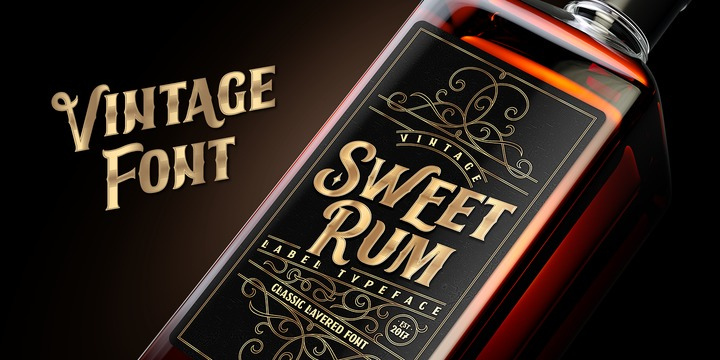
Sweet Rum Font
This tropical typeface is perfect for craft distillery branding, Caribbean restaurant signage, tiki bar materials, rum bottle labels, tropical resort marketing, beach club graphics, island vacation promotions, and exotic cocktail menu designs. Sweet Rum Font delivers intoxicating charm in applications where tropical sophistication and island lifestyle are essential for creating memorable brand experiences that transport audiences to paradise destinations and carefree vacation moments.
What makes Sweet Rum Font so exciting is its masterful evocation of Caribbean warmth and tropical luxury through elegant typography. The font features smoothly flowing letterforms with subtle island-inspired flourishes that capture the essence of aged rum and tropical craftsmanship. Each character has been thoughtfully designed to convey relaxation and premium quality while maintaining excellent readability across various hospitality applications. The typeface's intoxicating personality creates immediate associations with tropical escapes and refined leisure, making it perfect for brands that want to communicate exotic sophistication and island-inspired luxury through their visual identity.
The Sweet Rum Font includes enticing style variations: Regular, Bold, Script, and Decorative versions. This tropical collection allows designers to create layered compositions and establish sophisticated typographic treatments that capture the essence of island luxury and Caribbean charm. Each style maintains the font's inherent warmth while providing different personality levels for various tropical applications and exotic design themes.
This captivating typeface represents the perfect solution for designers who understand the allure of tropical sophistication in creating memorable brand experiences that celebrate island lifestyle and exotic luxury.